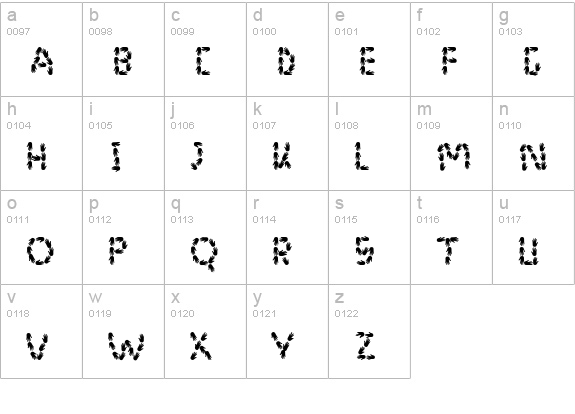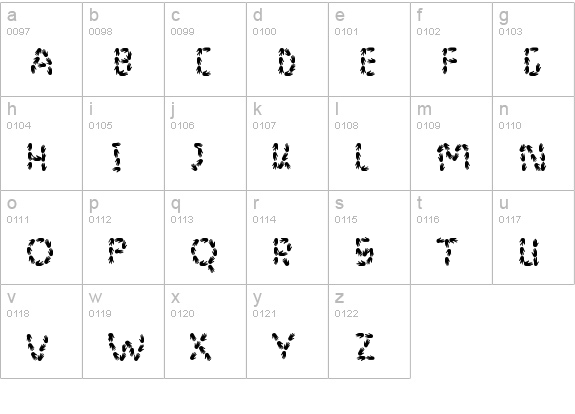
HandmadeFont Font Details
HandmadeFont is a unique and artistic font that exudes creativity and craftsmanship. With its hand-drawn appearance, this font adds a personal touch to any design project. Each character has been carefully crafted with intricate details, making it visually captivating and full of personality. The beauty of HandmadeFont lies in its versatility. Whether you are creating a logo, poster, or even a website, this font effortlessly adapts to any style or theme. Its organic and imperfect shapes give it a raw and authentic feel, perfect for conveying a sense of individuality and originality. What sets HandmadeFont apart is its accessibility. It is freely available to download at FontsMarket.com, making it an invaluable resource for designers and creatives alike. No longer do you have to compromise on quality or uniqueness due to budget constraints. HandmadeFont allows you to elevate your designs without breaking the bank. The free availability of HandmadeFont does not compromise its quality. Each character is meticulously designed and optimized for legibility, ensuring that your message is effectively communicated to your audience. The attention to detail is evident in every curve and stroke, resulting in a visually stunning and highly readable font. Whether you are a professional designer or a hobbyist, HandmadeFont is a must-have in your collection. Its handcrafted charm and free availability make it a versatile and accessible font that will elevate your designs to new heights. So go ahead, download HandmadeFont today at FontsMarket.com and let your creativity shine.